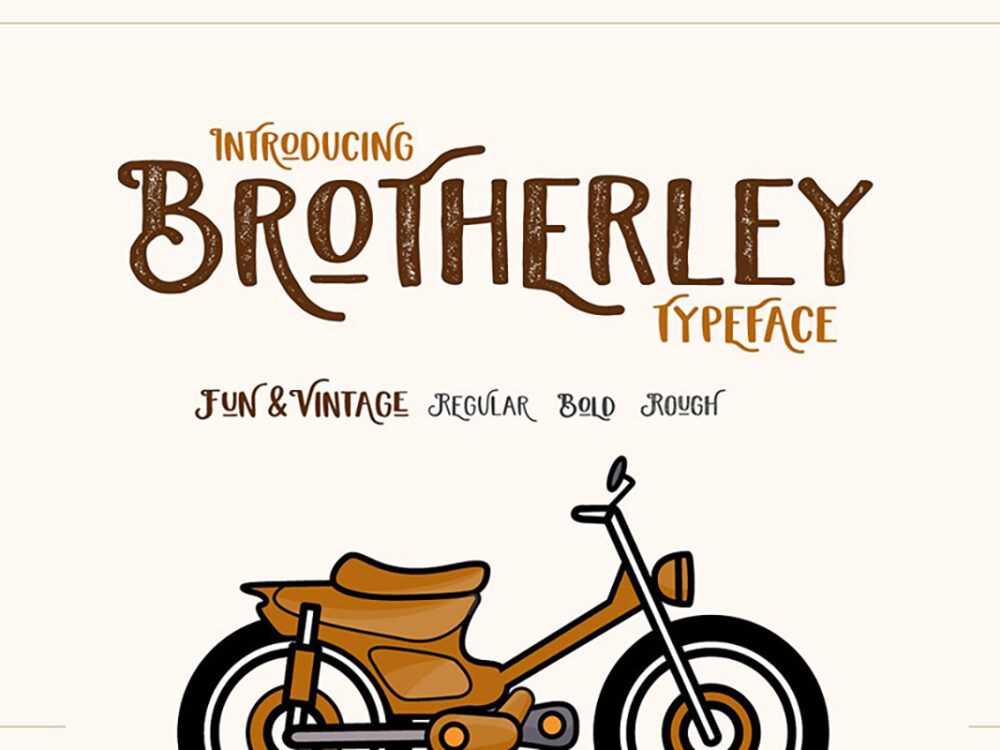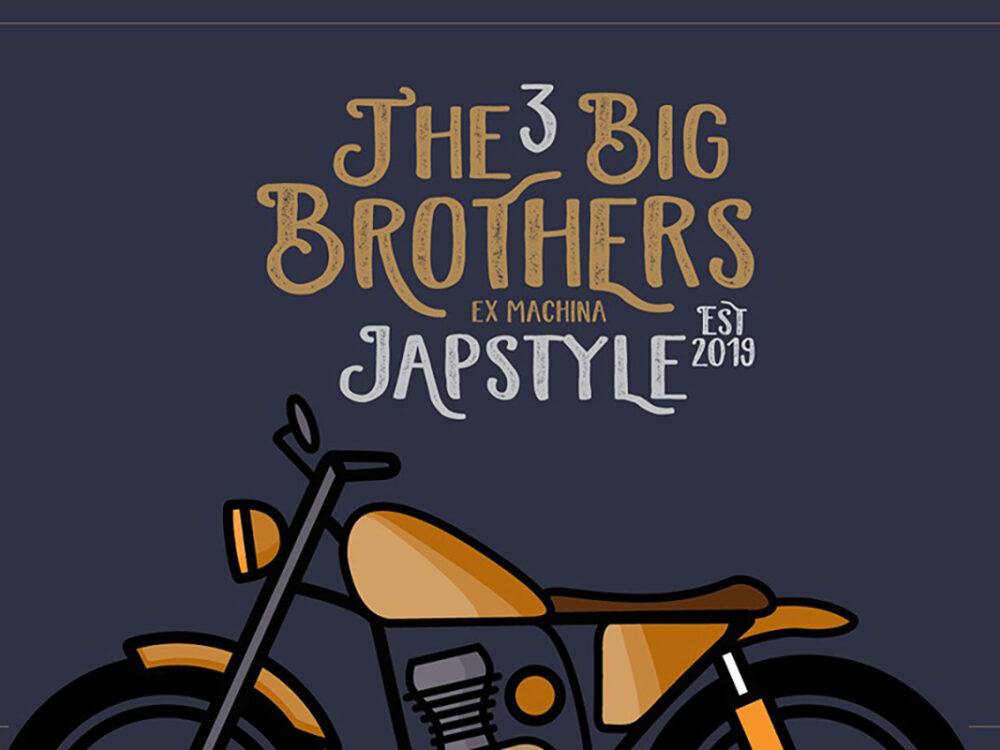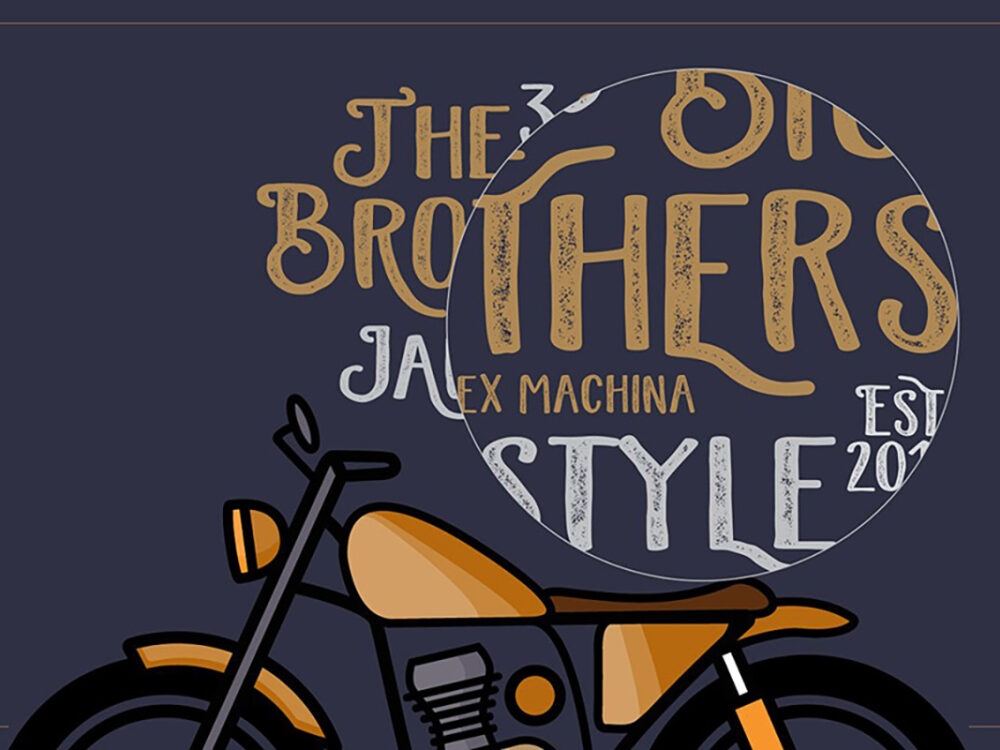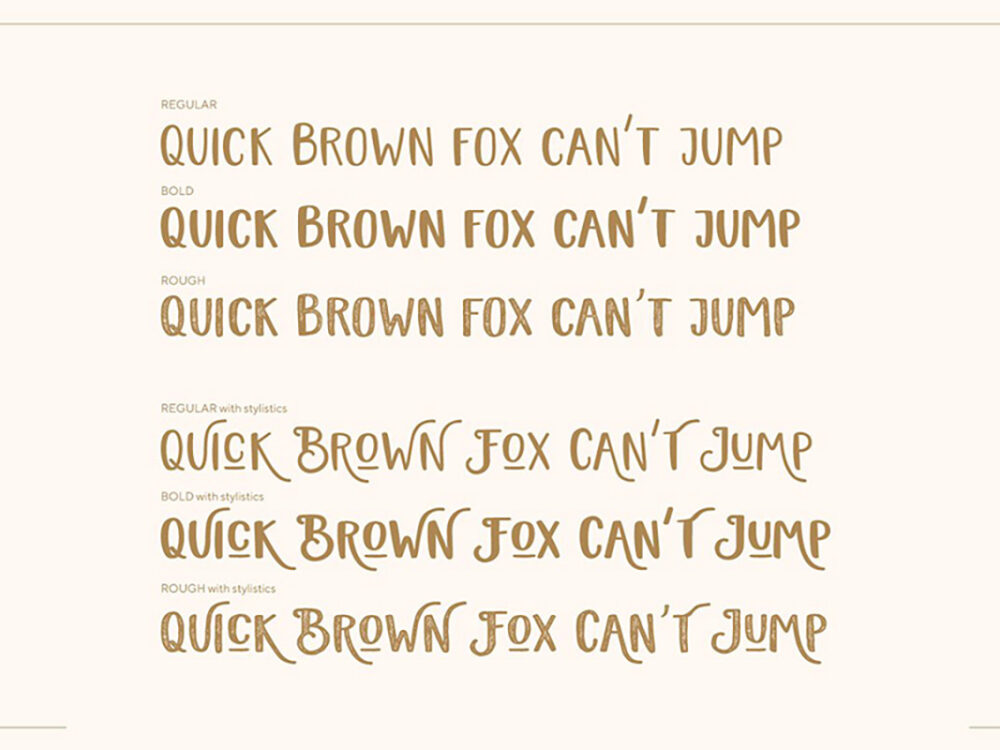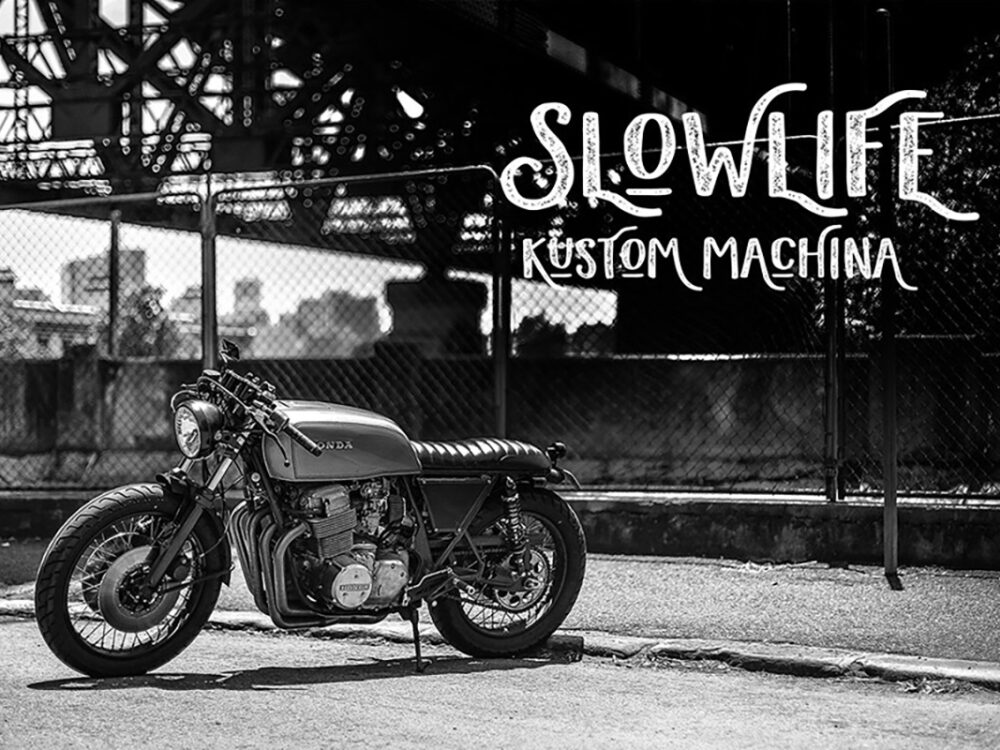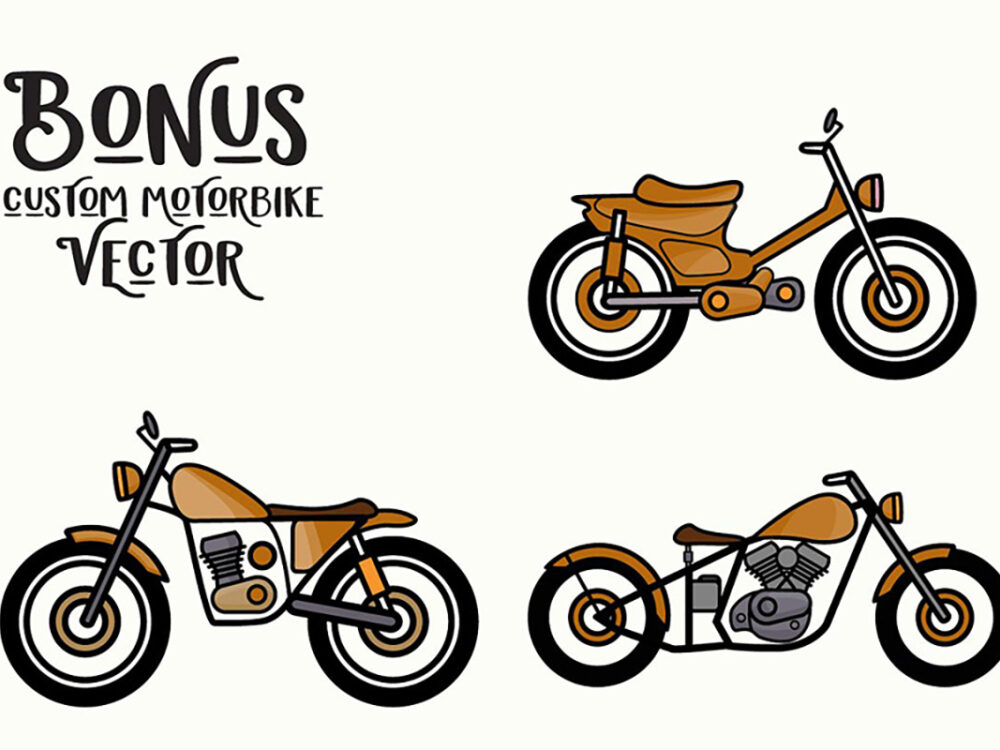
Brotherley Typeface Free Demo
Free Retro Font
Brotherley Typeface Free Demo
Brotherley Typeface Free Demo is a beautiful interesting vintage typeface with vibrant handwriting. This font will give you the ability to implement your project in three different ways – you can use the font as a regular, bold, and rough style. Any of your vintage style projects from posters to advertisements will be unique when you use this font.  If you wish to access more features and use it for commercial work, go get the full version as well.